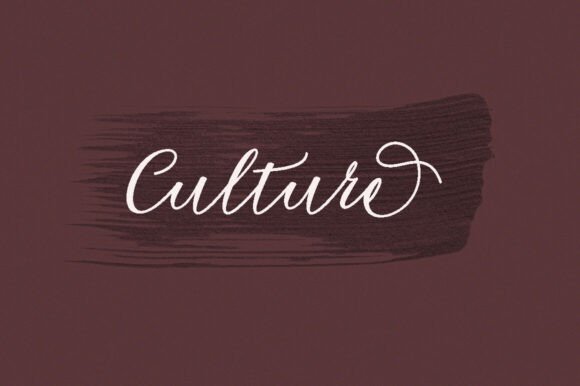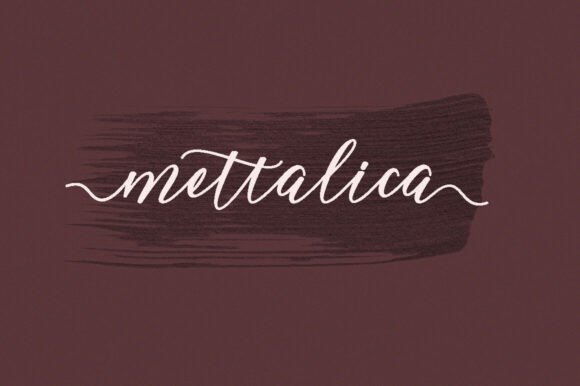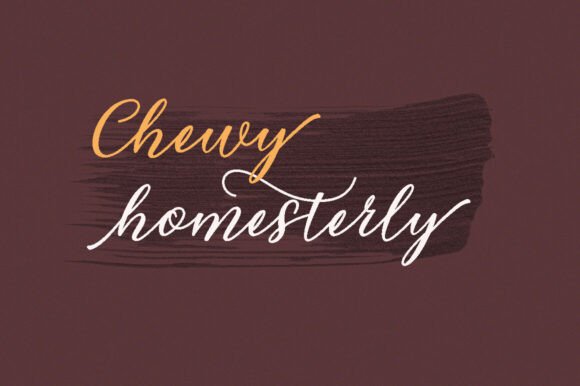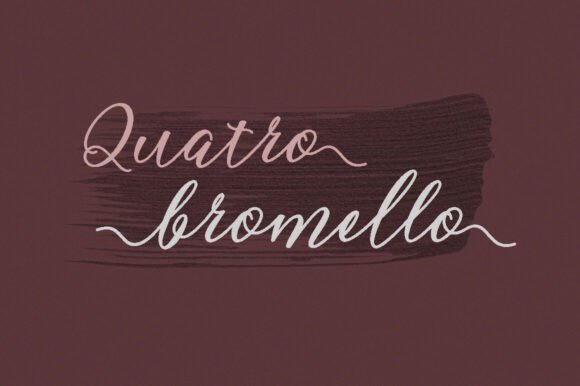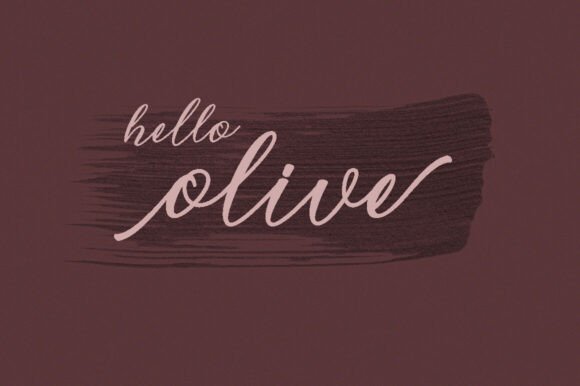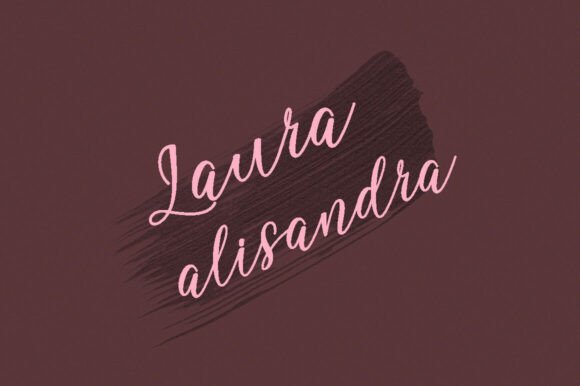
Introduction to Maestha Font Font
Fonts play a crucial role in design, and the Maestha Font font is a typeface that brings both character and versatility to any project. Whether you’re working on a branding project, a website, or a print design, the Maestha Font font offers a unique style that can elevate your work.
Maestha Fonts combines modern and elegant styles while maintaining a feminine touch, making it the perfect choice for various design needs.
This handcrafted font style is ideal for logos and branding, invitations, stationery, wedding designs, social media, advertisements, printed quotes, product packaging, labels, photography, watermarks, special events, and even magazine layouts .
Key Features of Maestha Font Font
Why Choose Maestha Font Font?
The Maestha Font font is more than just a typeface – it’s a design tool that helps you communicate your message with style and clarity. Its unique character set and versatile design make it suitable for a wide range of applications, from elegant invitations to bold headlines.
With its carefully crafted letterforms and balanced proportions, the Maestha Font font ensures readability and visual appeal across all mediums.
What makes Maestha Font font special?
The Maestha Font font stands out with its unique design, exceptional readability, and versatility across various design applications.